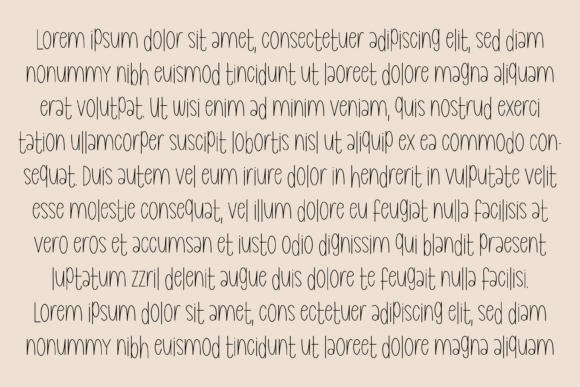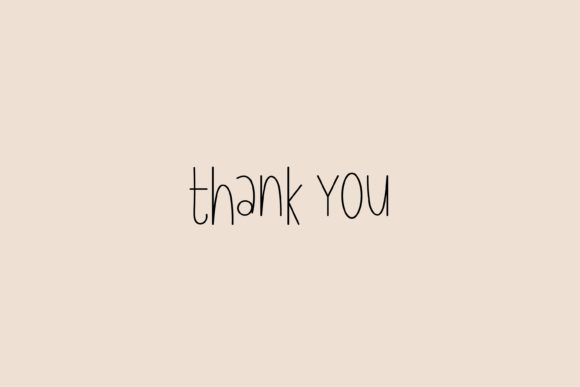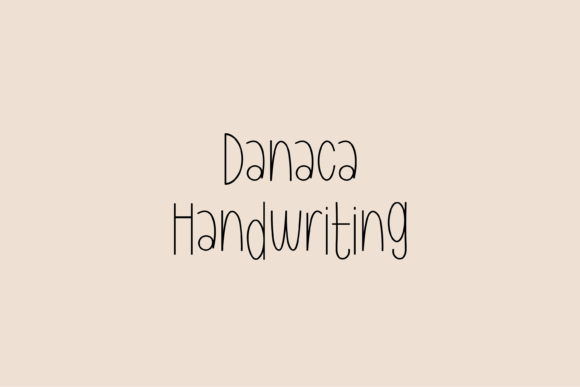
Introducing Danaca Font: The Perfect Handwritten Companion for Your Designs
Are you on the hunt for a font that adds a personal touch to your designs? Look no further than Danaca Font, a simple yet friendly handwritten typeface that’s sure to brighten up any project. With its whimsical and slightly quirky charm, Danaca is the perfect companion for designers and crafters looking to add a dash of personality to their work.
The Characteristics of Danaca Font
Danaca Font is a beautifully crafted handwritten font that’s designed to bring a sense of warmth and approachability to your designs. Its simple, flowing lines and rounded edges give it a friendly feel that’s hard to resist. Whether you’re working on a logo, invitation, or advertisement, Danaca’s unique character is sure to make your project stand out from the crowd.
One of the key features that sets Danaca apart is its whimsical and slightly quirky nature. This font is not your standard, run-of-the-mill typeface – it’s got a bit of personality and charm that will add a touch of magic to your designs. And with its high level of legibility, you can use Danaca with confidence, knowing that your message will be clear and easy to read.
So, what can you use Danaca Font for? The possibilities are endless! This versatile typeface is perfect for a wide range of design projects, including:
- Logos: Create a unique and memorable logo for your brand with Danaca’s distinctive handwritten style.
- Wedding Invitations: Add a touch of romance and whimsy to your wedding invitations with Danaca’s elegant and flowing lines.
- Quotes: Make your quotes stand out with Danaca’s bold and playful style.
- Advertisements: Grab attention and add some personality to your ads with Danaca’s quirky and eye-catching typeface.
- Print: Use Danaca in your print projects, such as brochures, flyers, and posters, to add a personal touch.
- Magazines: Add some visual interest to your magazine layouts with Danaca’s unique and engaging style.
Why Choose Danaca Font?
So, why should you choose Danaca Font for your next design project? Here are just a few reasons why:
- Unique and Eye-Catching: Danaca’s whimsical and quirky style is sure to grab attention and make your designs stand out.
- Highly Legible: Despite its playful nature, Danaca is highly legible, making it perfect for use in a wide range of design projects.
- Versatile: Danaca can be used for everything from logos and invitations to ads and magazine layouts.
| Font Name | Danaca Font |
| Author | Woracado |
In conclusion, Danaca Font is a simple yet friendly handwritten typeface that’s perfect for designers and crafters looking to add a personal touch to their designs. With its whimsical and quirky charm, high level of legibility, and versatility, Danaca is the perfect companion for a wide range of design projects. So why not give Danaca a try and see the difference it can make in your designs?